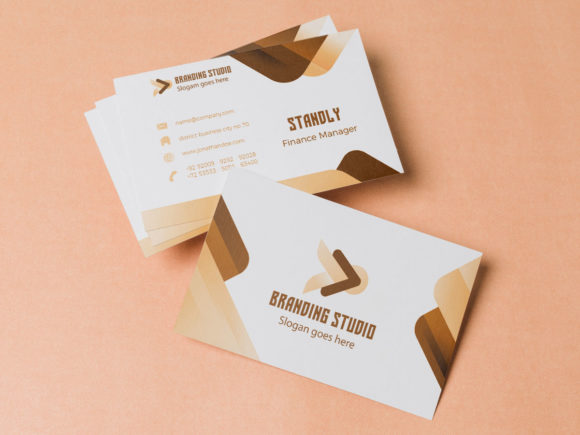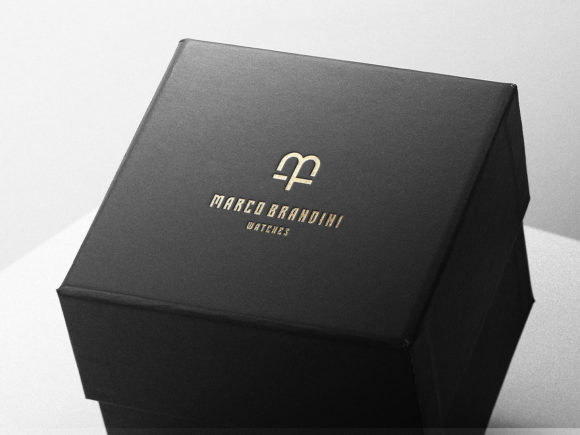
Introduction to Qube Font
Remember that moment when you’re brainstorming ideas for a creative project and you finally land on the perfect concept? It’s the spark that sets everything in motion, and it all starts with the right design resource. For designers, finding the perfect font can make or break a project. That’s why we’re excited to introduce you to Qube Font, a modern sans serif font that’s about to become your new go-to for creating stunning headlines and logotypes.
What sets Qube Font apart is its versatility and high quality design. Suitable for big text, branding, and display usage, this font is perfect for creating eye-catching logos, promotional content, and marketing graphics that will grab the attention of your visitors. With its transparent background and sleek design, Qube Font is the perfect addition to any design project.
Key Features of Qube Font
- Perfect for graphic designers, digital artists, and creatives
Honest Review: Qube Font
As a designer, I’m always on the lookout for high-quality design resources that can elevate my creative projects. The Qube Font caught my eye with its sleek and modern design, making it perfect for any design project that requires a clean and minimalist aesthetic.
- ✨ The Qube Font is incredibly versatile and can be used for a wide range of design projects, from logos to typography-based designs.
- ✨ The transparent background allows for seamless integration with any design element.
- ⚠️ The font might be too minimalist for some designers who prefer a more dramatic or ornate design style.
- ⚠️ The Qube Font might not be suitable for projects that require a lot of texture or depth.
Overall, I’m impressed with the Qube Font and its potential to enhance any design project. While it may have some limitations, its high-quality design and versatility make it a valuable addition to any designer’s toolkit.
Common Use Cases for Qube Font
Qube Font is ideal for a variety of design projects, including business cards, brochures, posters, and social media graphics. You can also use Qube Font to create custom logos, icons, and typography for your brand.